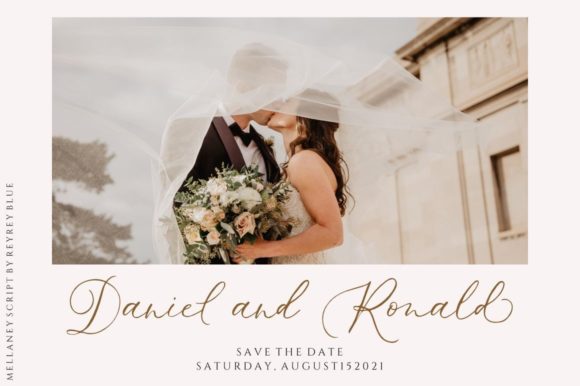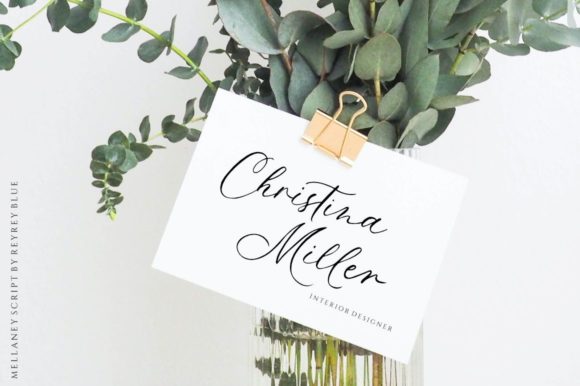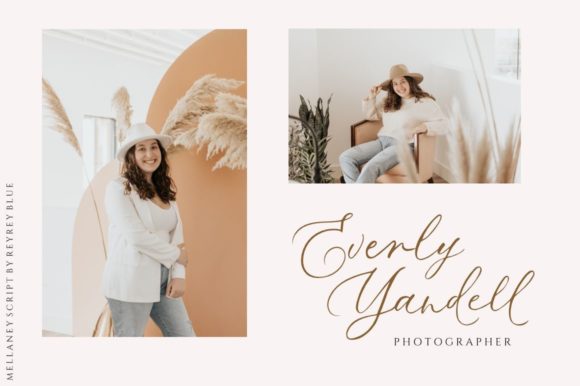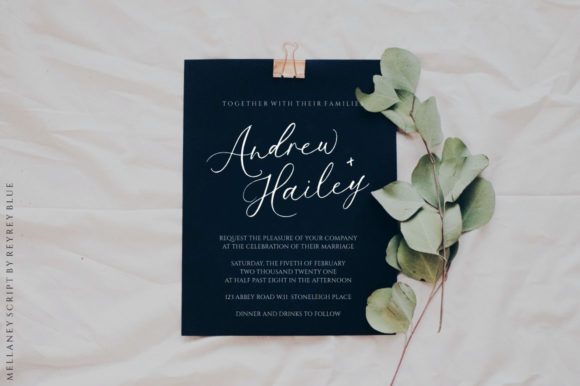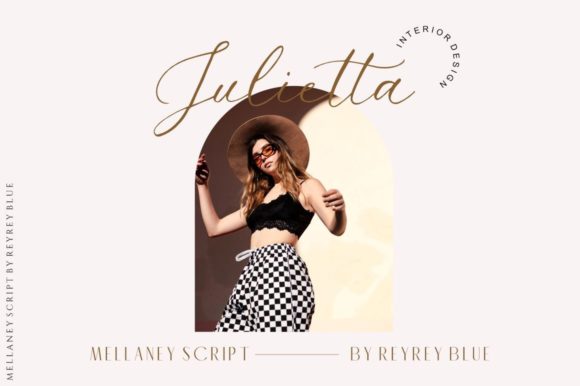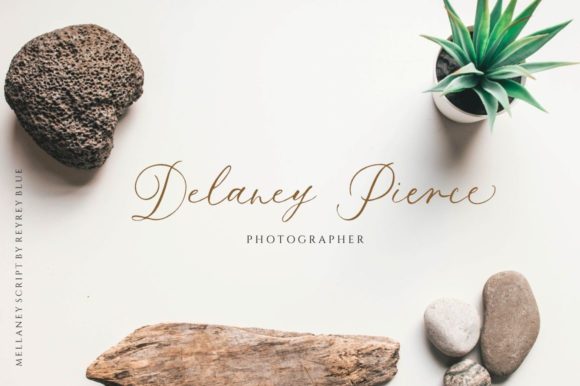
Introduction to Mellaney Script Font
There’s nothing quite like the thrill of discovering a new design resource that elevates your creative project to the next level. Whether you’re a seasoned graphic designer or a budding artist, the search for the perfect font can be a daunting task. But what if you stumbled upon a font that not only adds a touch of elegance to your design but also provides endless possibilities for customization? Enter the Mellaney Script Font, a beautiful and unique handwritten font that’s sure to become your new favorite design companion.
With its high-quality design and transparent background, the Mellaney Script Font is a valuable addition to any designer’s toolkit. Whether you’re working on a free download project or a paid commission, this font is sure to impress. And the best part? It’s PUA encoded, making it easy to access all of the glyphs and swashes you need to create truly unique designs.
Key Features of Mellaney Script Font
- High-quality, elegant design perfect for creative projects, with a delicate and intricate script style.
- Comes with a transparent background, allowing for easy customization and versatility in design applications.
- Supports a wide range of languages, making it a great choice for international design projects.
- Designed with precision, this font features a resolution of 300 DPI, ensuring crisp and clear text display.
Honest Review: Mellaney Script Font
I recently stumbled upon the Mellaney Script Font while searching for a design resource to enhance my creative project. This font immediately caught my eye with its elegant and sophisticated design. The high quality of the font is evident, making it perfect for any design project that requires a touch of class.
The Mellaney Script Font offers a beautiful, handwritten style that can be used for a variety of purposes, from wedding invitations to branding and marketing materials. I was thrilled to find that it’s available for free download, which is a huge bonus for designers like myself who are always on the lookout for high-quality design assets without breaking the bank.
- ✨ Elegant and sophisticated design
- ✨ High quality and perfect for design projects
- ✨ Suitable for a variety of purposes, including branding, marketing, and more
- ⚠️ Limited language support (only Latin alphabet)
- ⚠️ Not ideal for projects that require a transparent background (due to the font’s design)
Overall, I’m very impressed with the Mellaney Script Font and would definitely recommend it to fellow designers. Its high quality, elegant design, and free availability make it a valuable resource for any creative project. However, keep in mind the limitations mentioned above to ensure the best results.
The Mellaney Script Font is ideal for a range of creative projects, including wedding invitations, social media graphics, and product labels. Its elegant style makes it perfect for luxury brands and high-end designs.